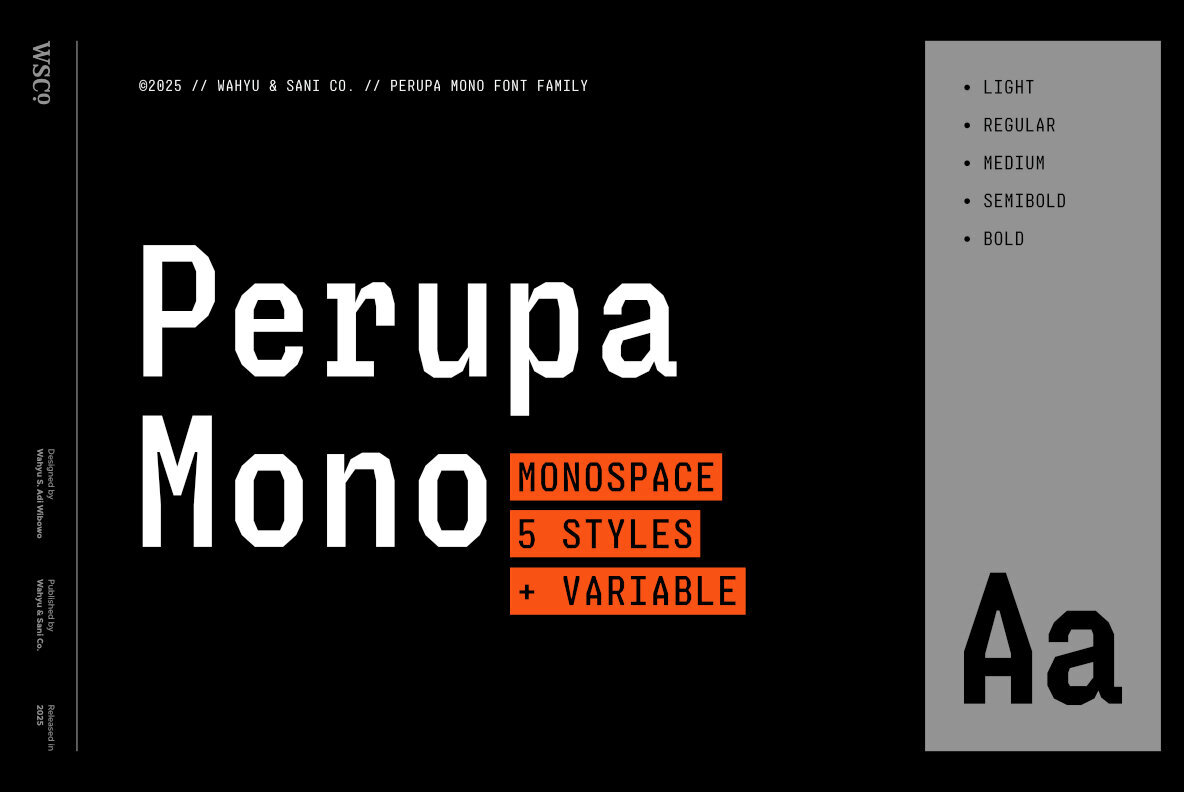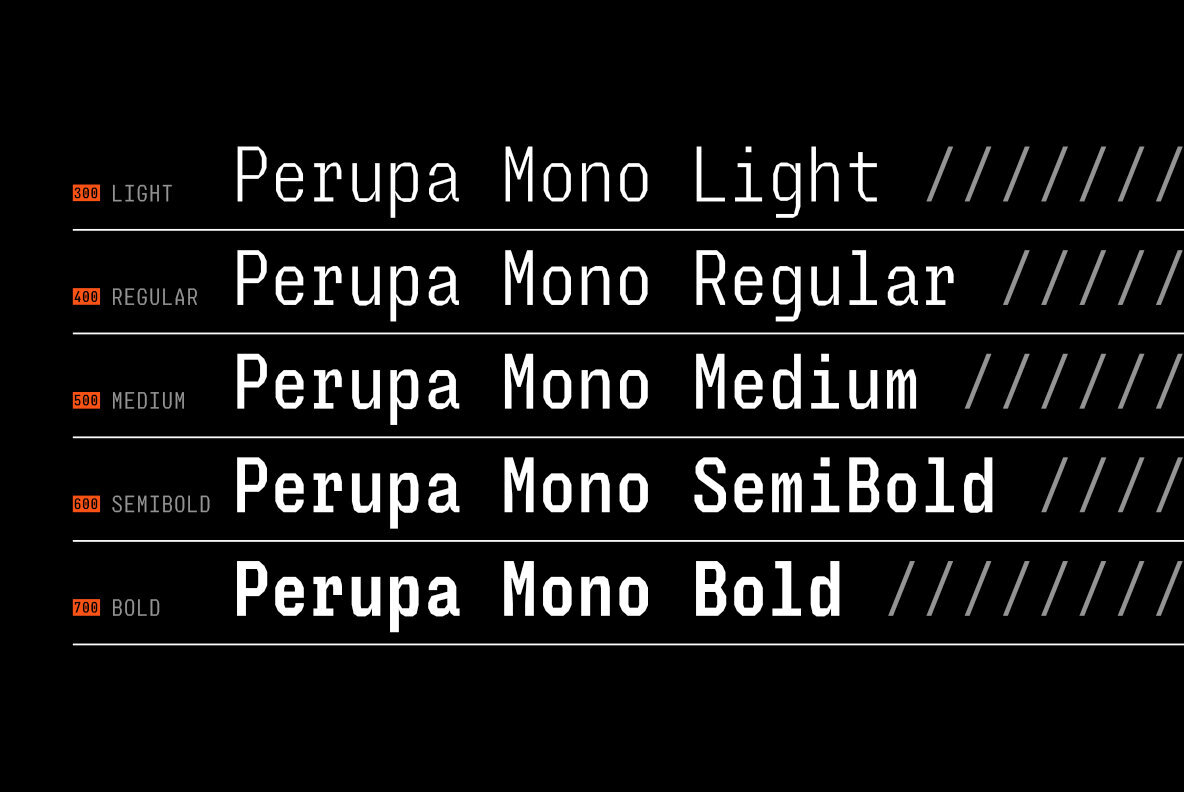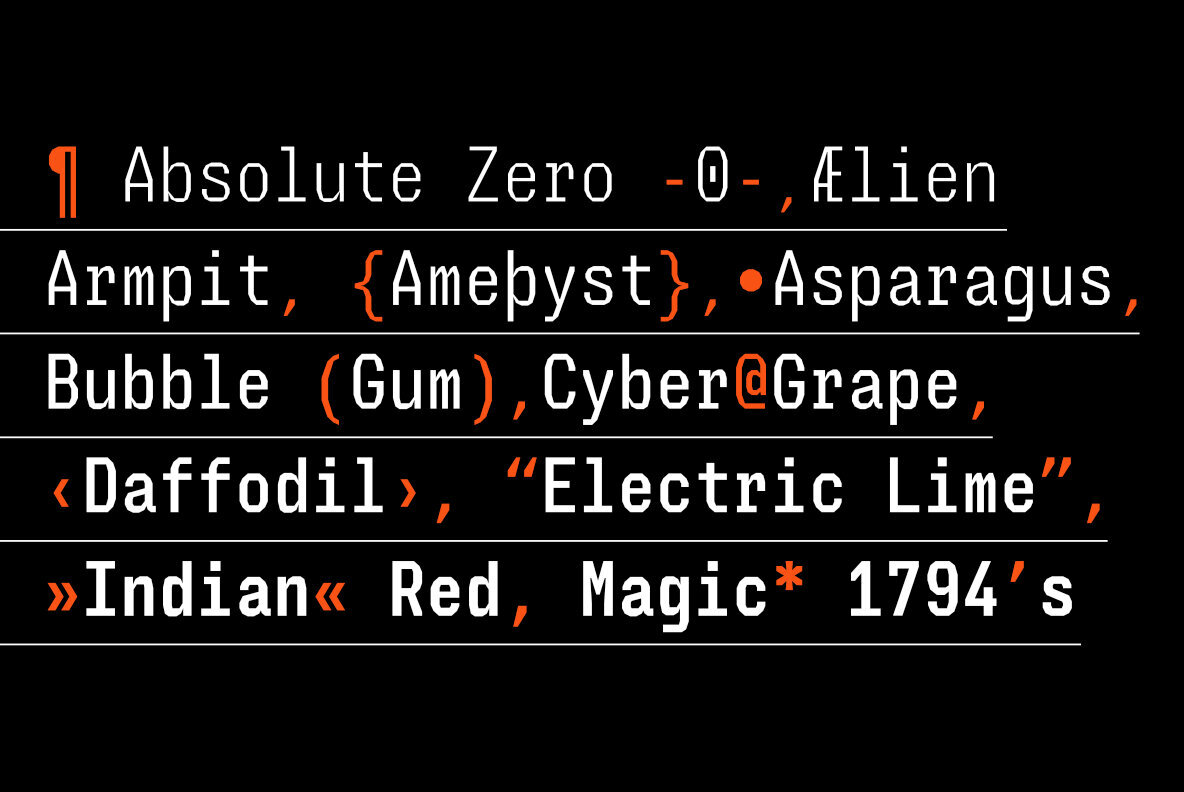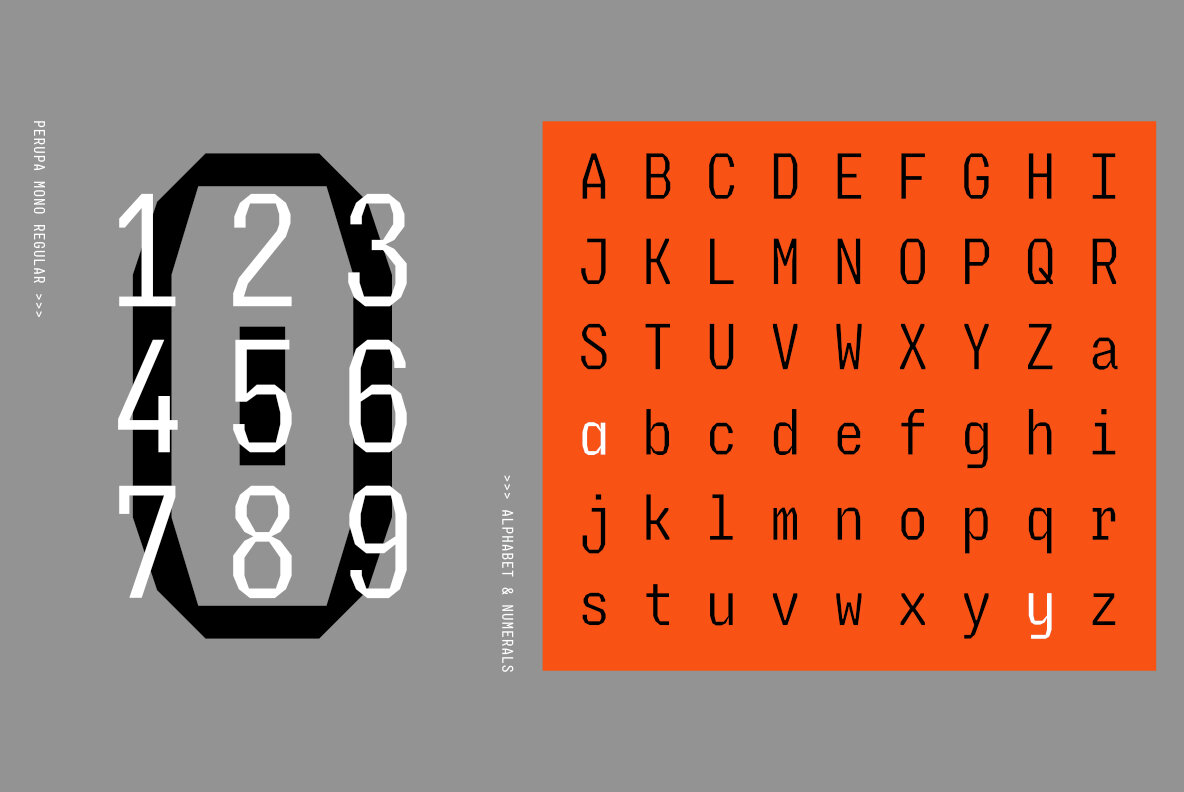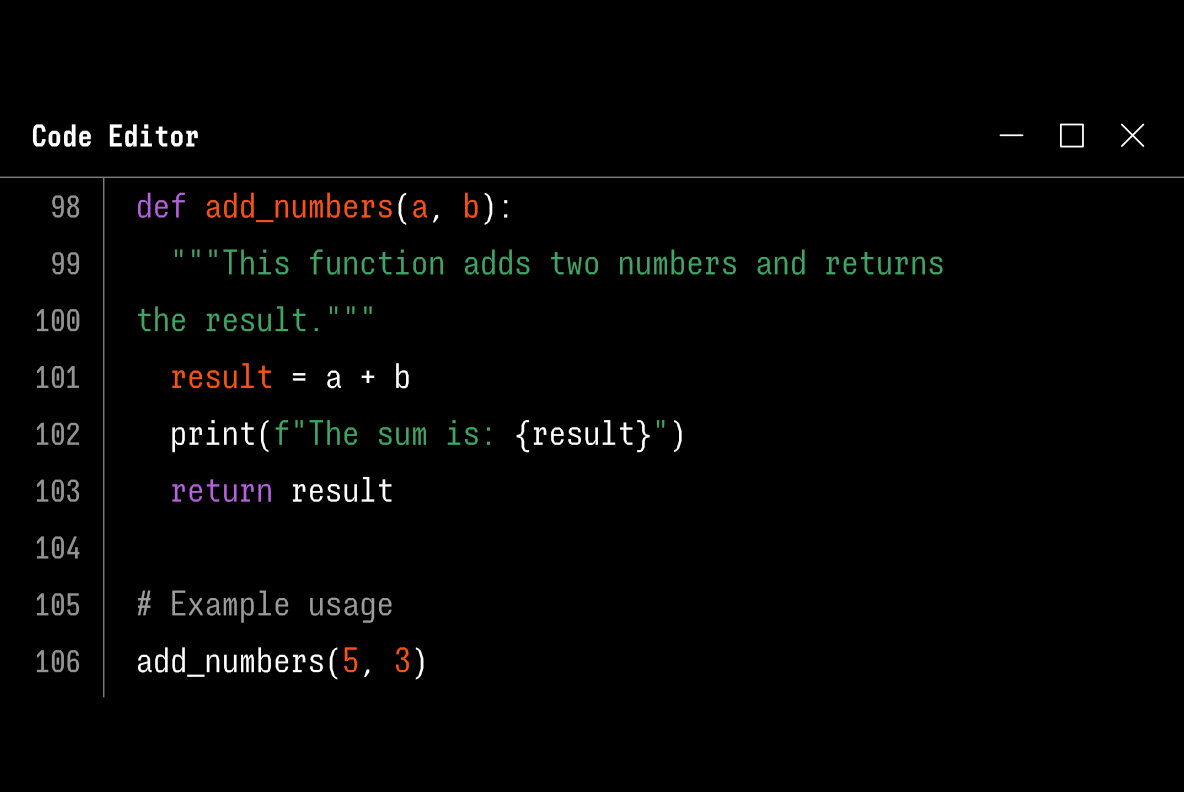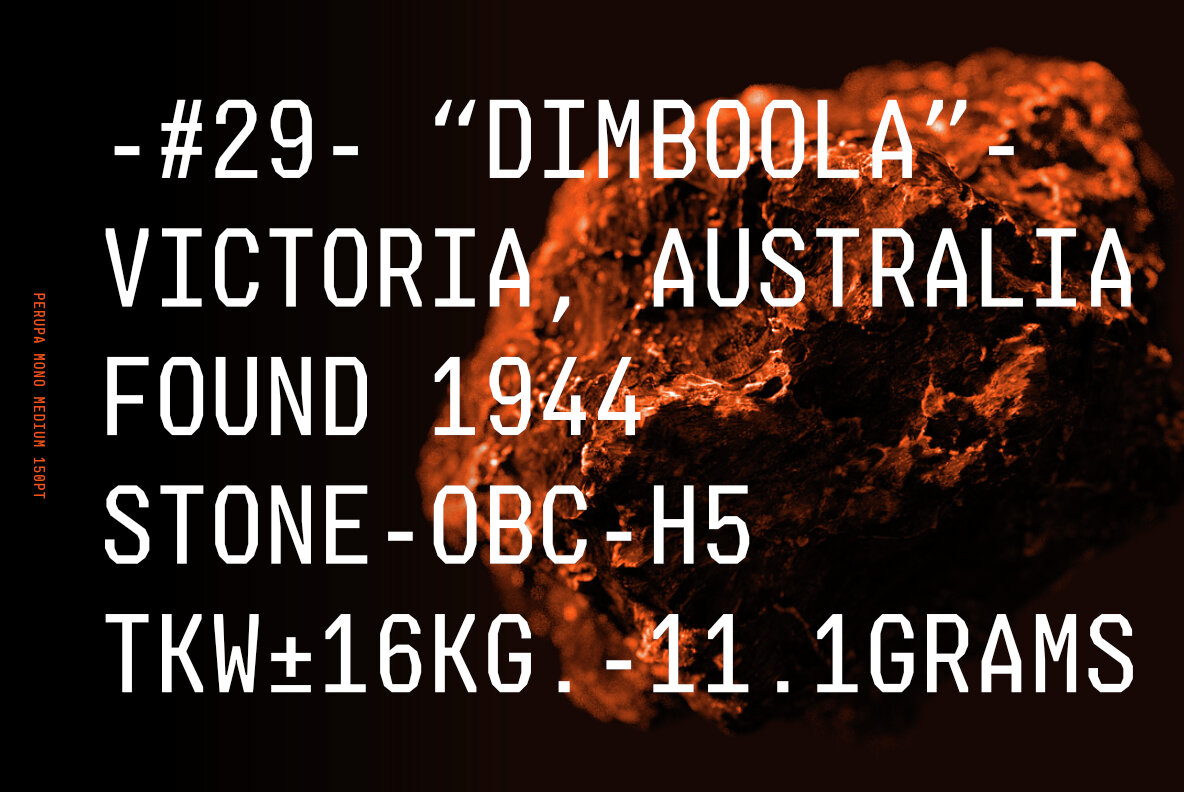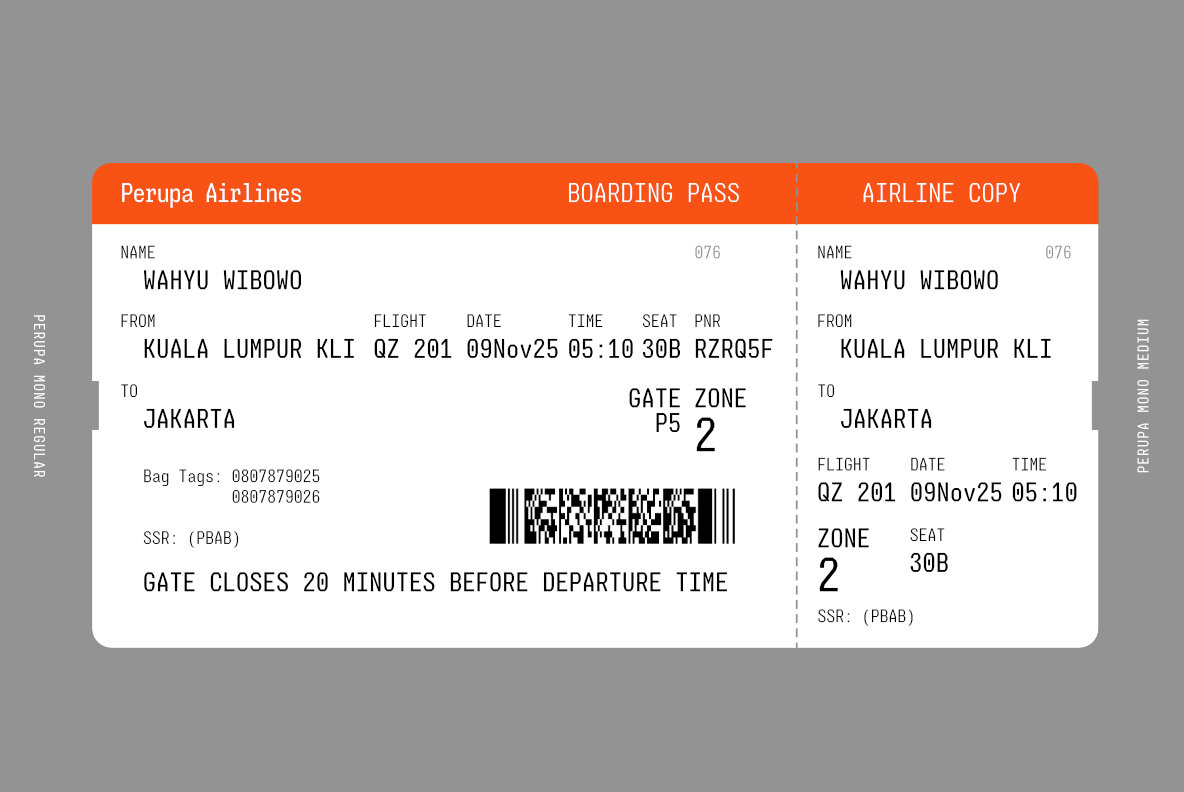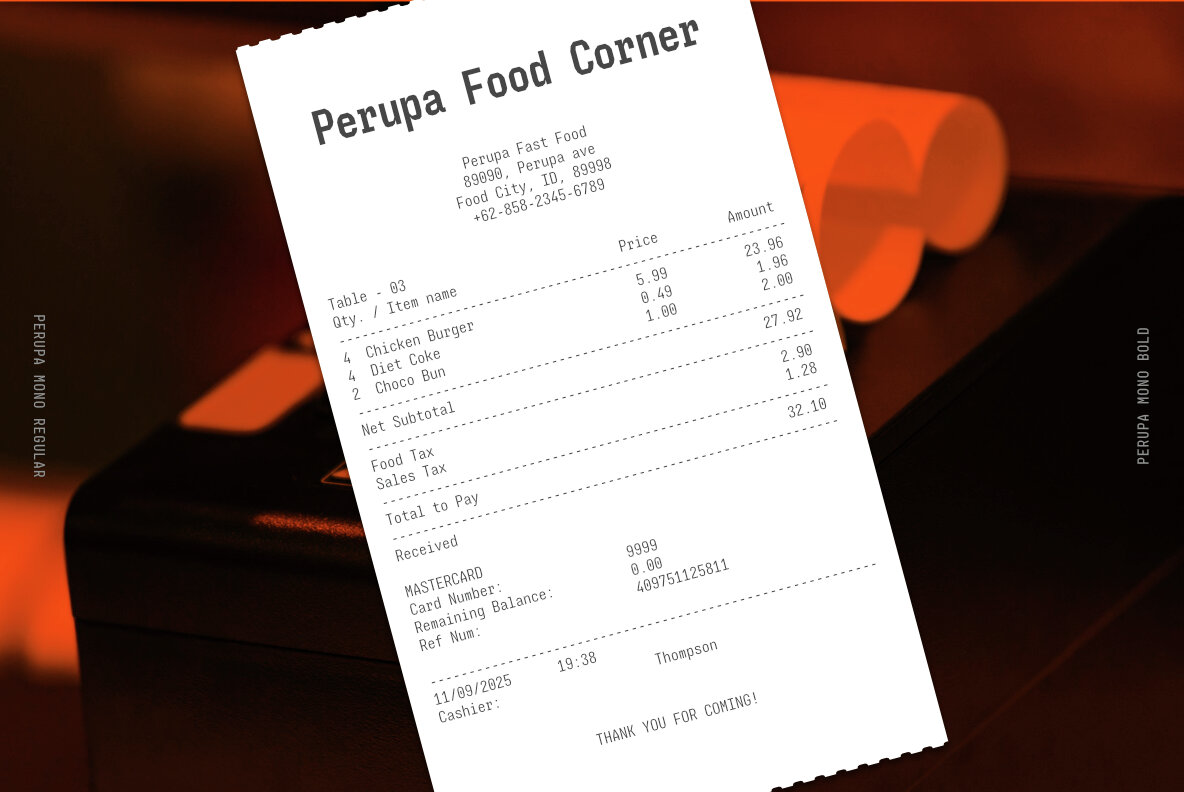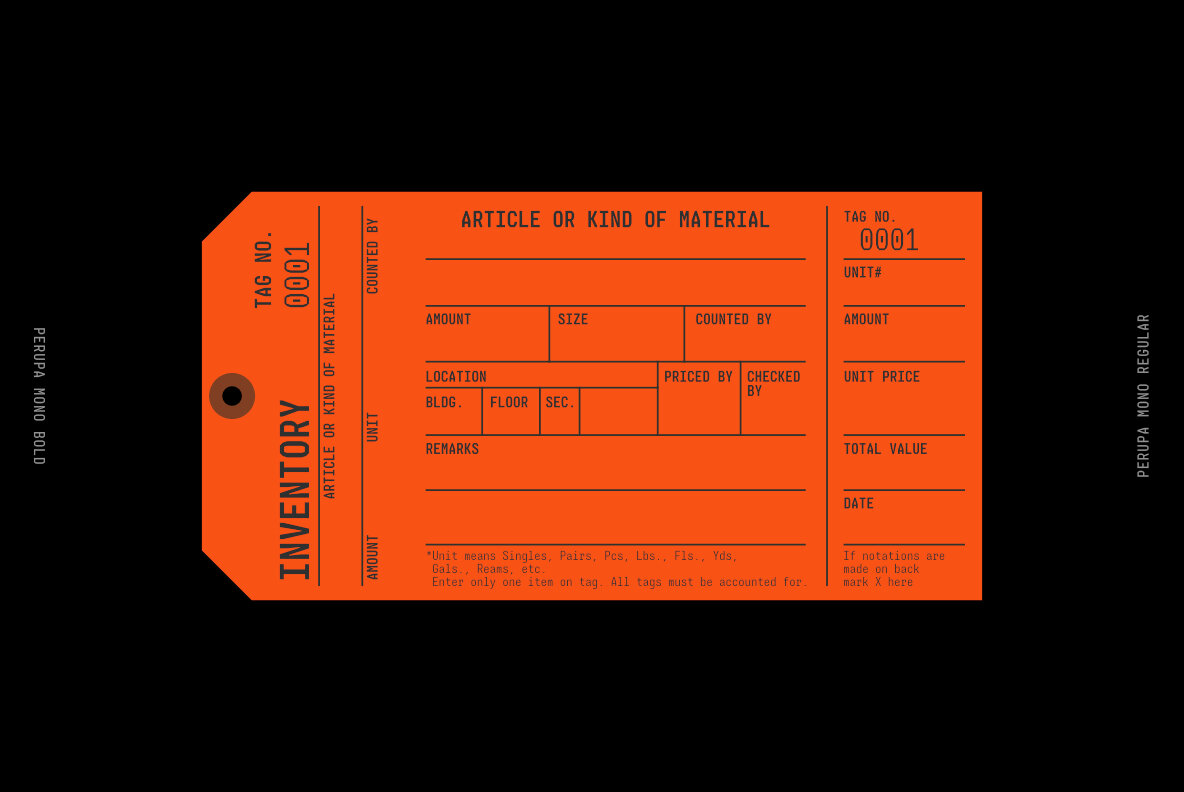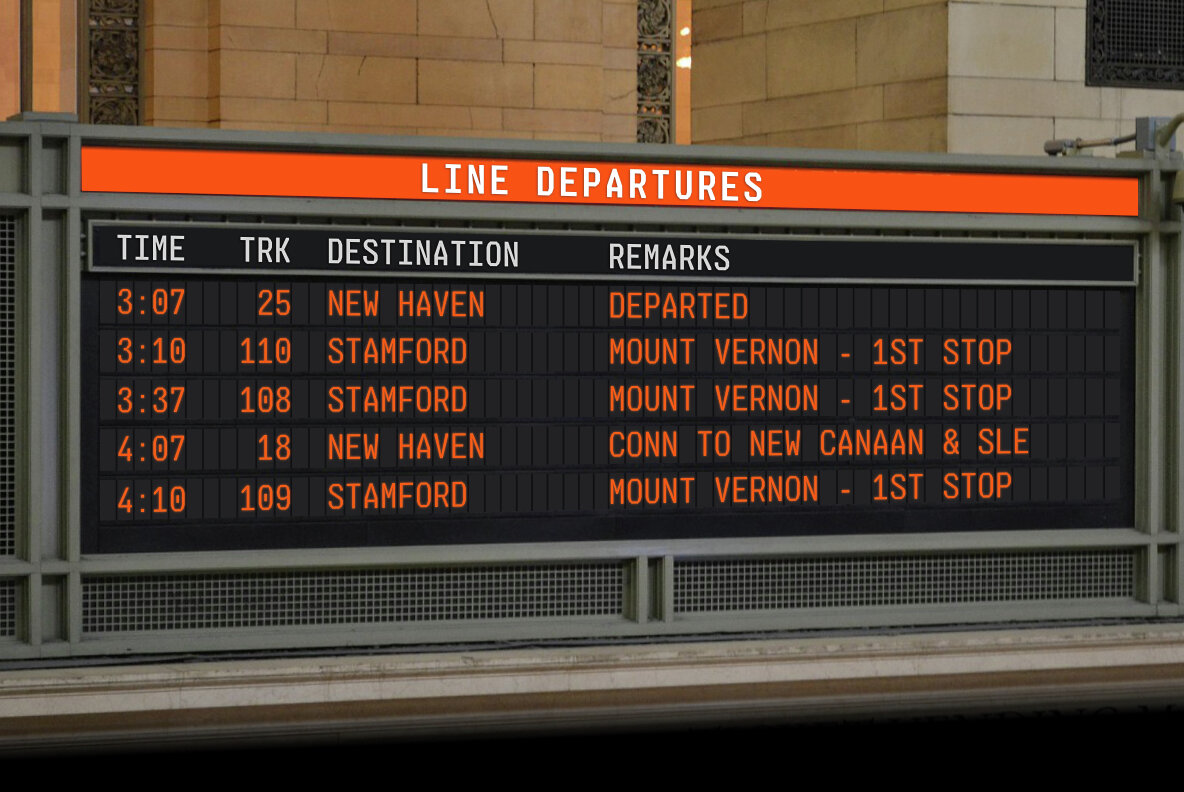
Perupa Mono Font
Perupa Mono is a polygonal monospace font family meticulously designed for precision and readability. Its sans serif styling and fixed width make it an ideal choice for coding, terminal use, and other applications where clarity is paramount. Perupa Mono is exceptionally suited for:Perupa Mono: Precision in Every Pixel